Behind the Scenes in Typeface Creation: “Creating Customized Emoji in Slack”
There is a reaction function incorporating emoji in the business chat tool “Slack.” In addition to the default emoji, customized emoji can be registered.
Customized emoji for “Please,” “Thank you,” etc. can be useful for casual conversation. However, there are many cases in which excessive narrow font deformation is made to store text in small squares, so, I created customized emoji without narrow font deformation in the Type Project fonts prepared with various character widths.
The two series of AXIS Round 100 and TP Sky Middle Contrast, which already have families designed with narrow fonts, were chosen for this occasion.
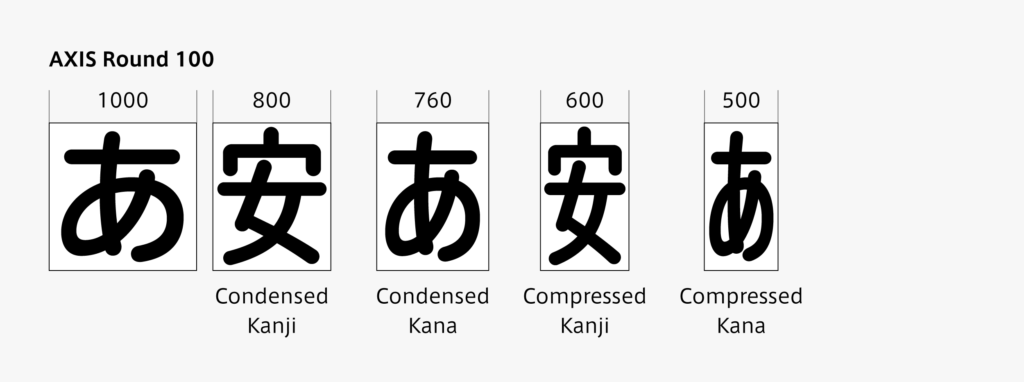
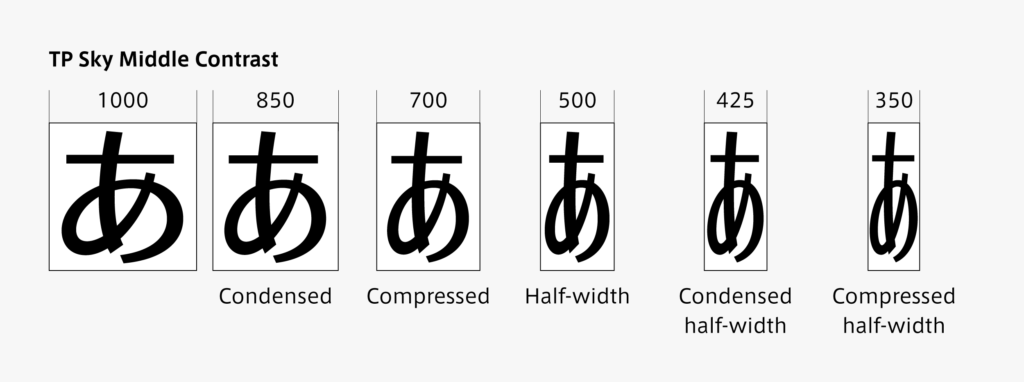
Here is the completed customized emoji (on the left). It is placed with one created in narrow font deformation (on the right). AXIS Round 100 seems to match the Slack user interface with roundness. As TP Sky Middle Contrast gives an elegant impression, I think it blends well with the business context.